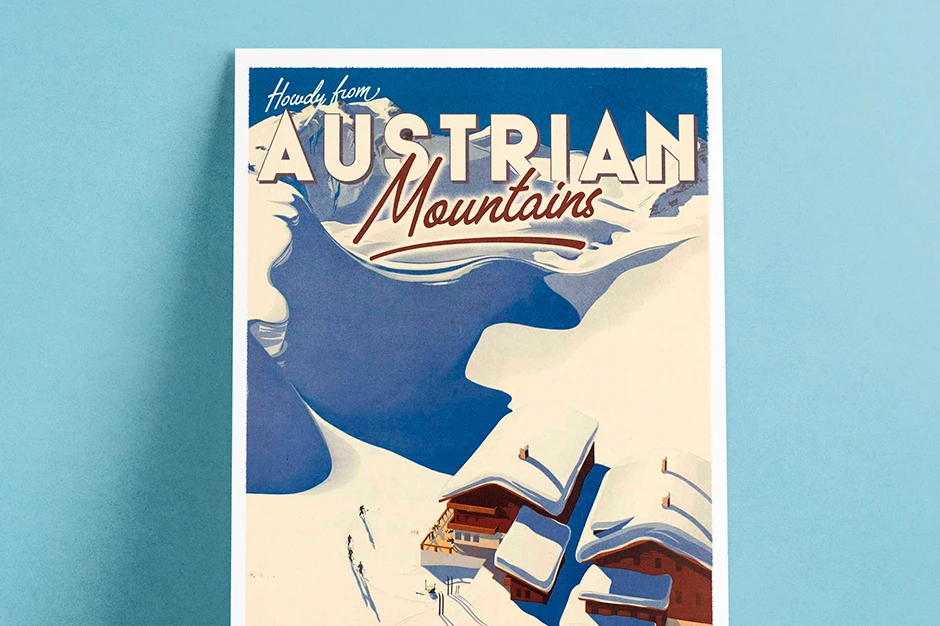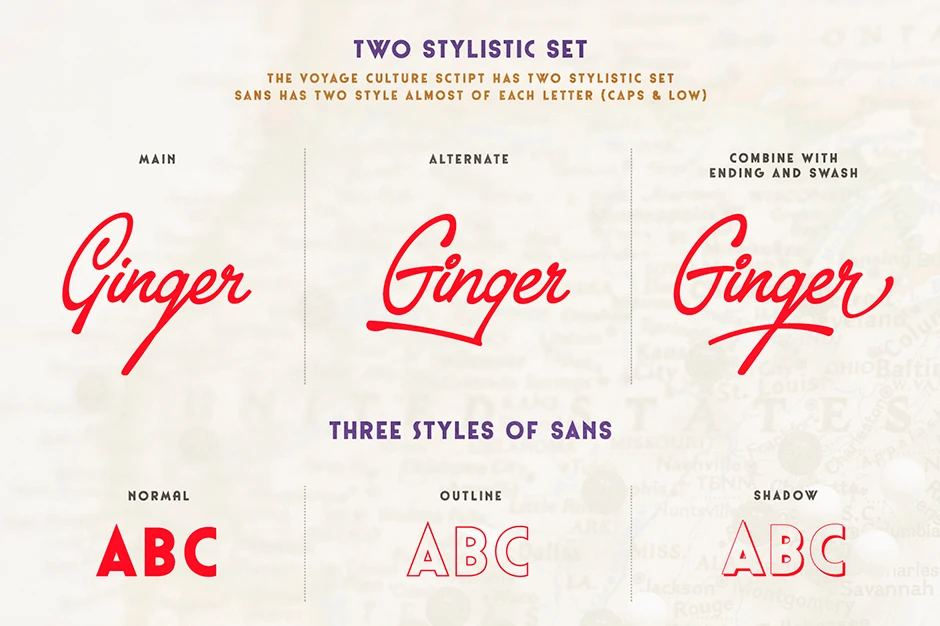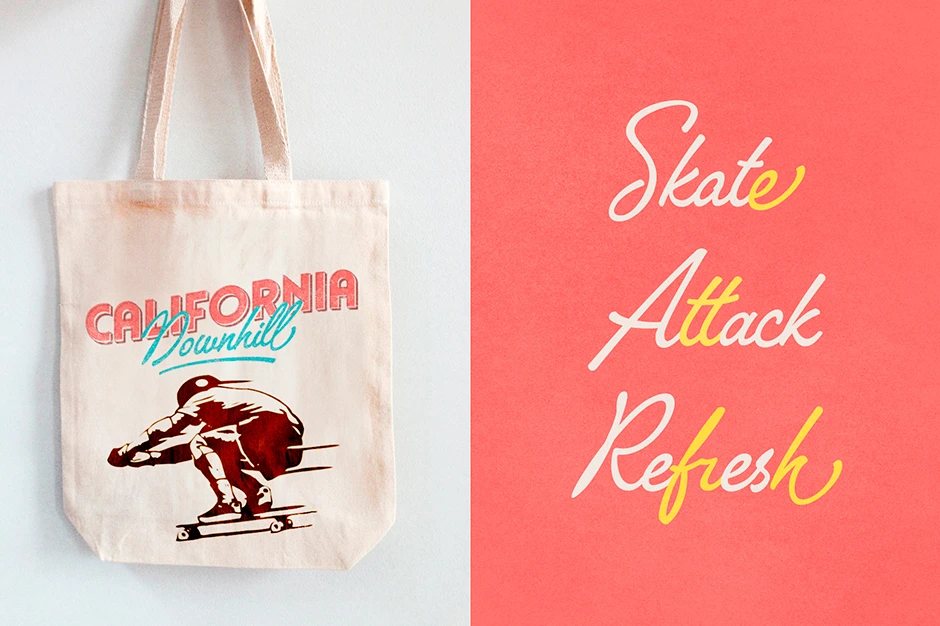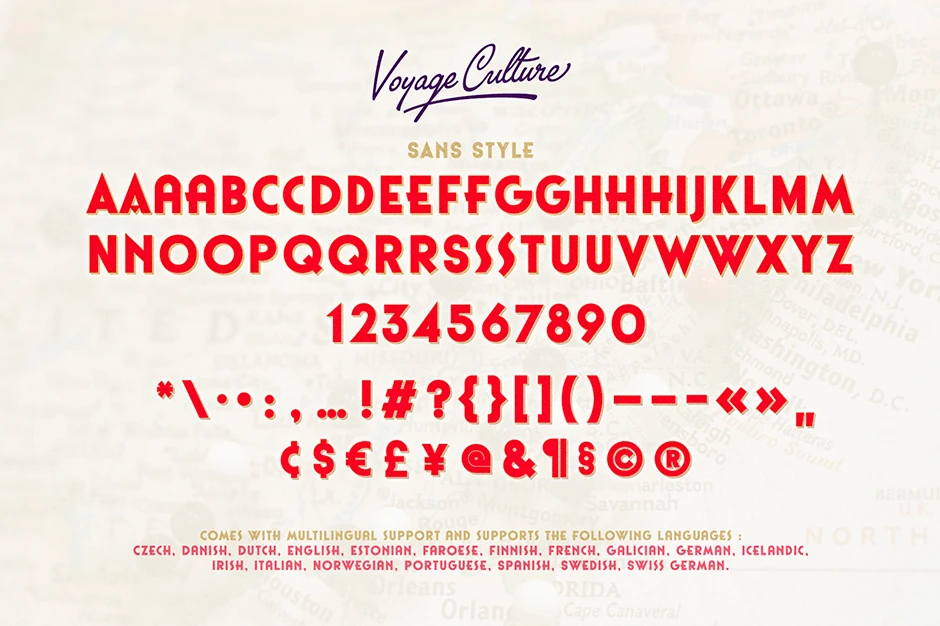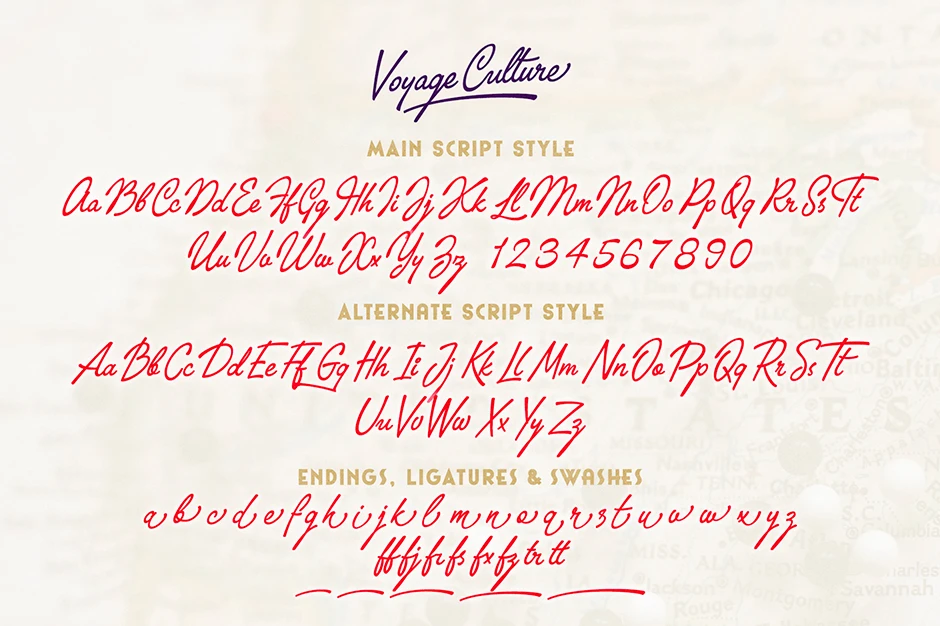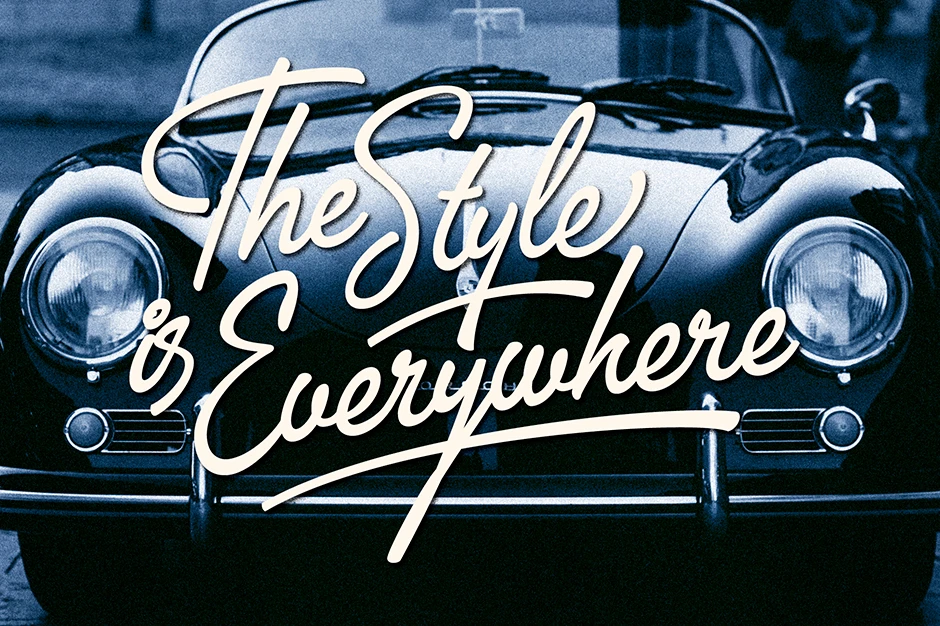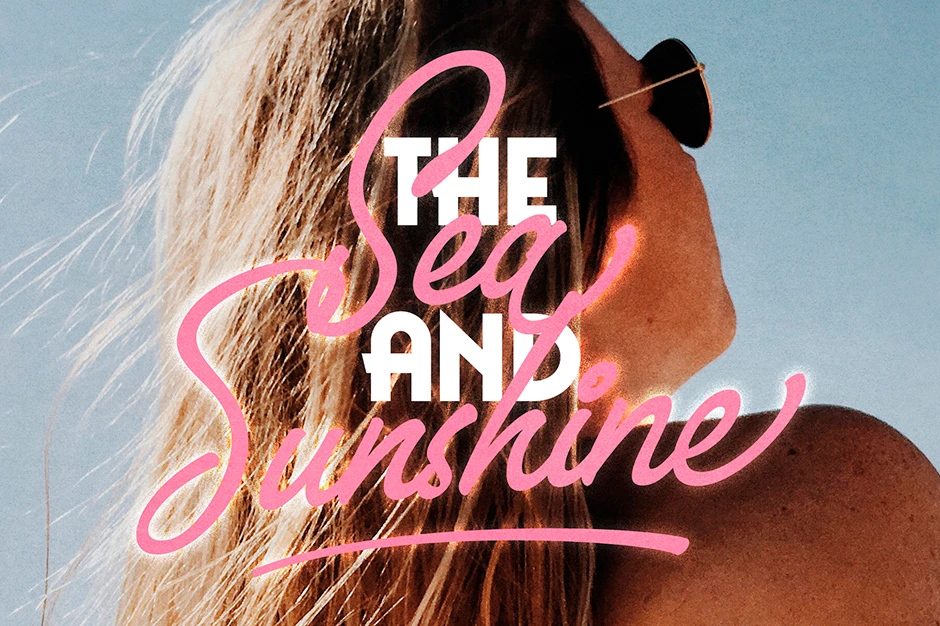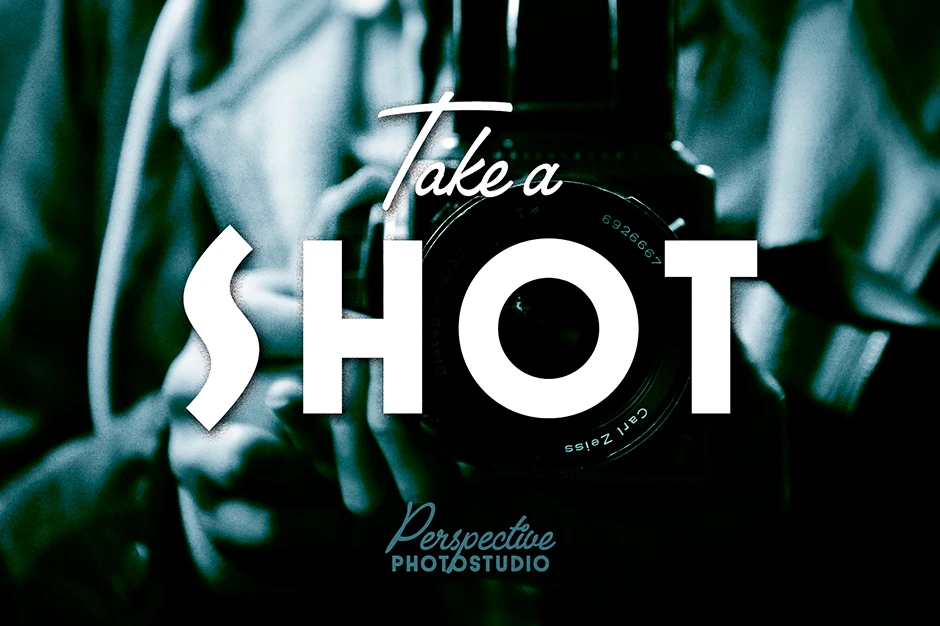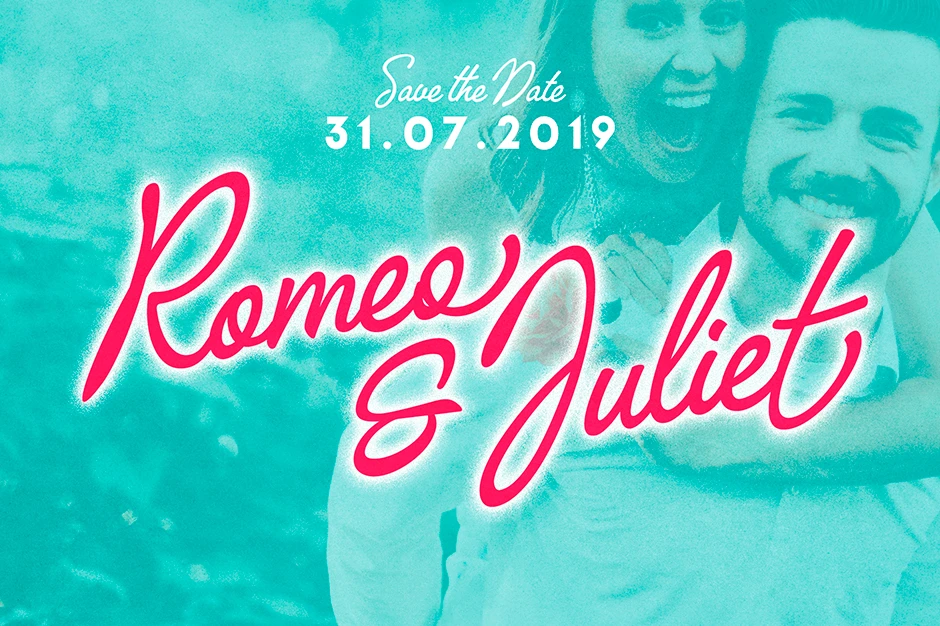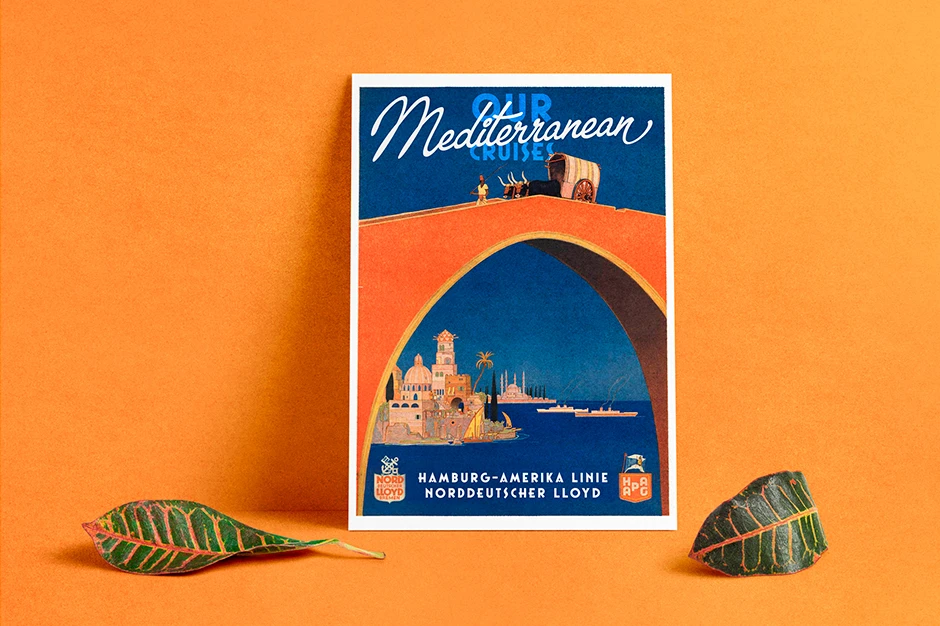
Voyage Culture Font Family
Voyage Culture is a vintage-inspired font pair designed for flexible, stylish typography. It combines a bold, art-deco influenced sans-serif with a playful retro brush script. Inspired by early 20th-century travel posters, this duo brings a nostalgic yet energetic feel to any design.
Perfect for t-shirts, café logos, music posters, candy packaging, and more, the fonts work beautifully together to create standout visuals. With distinctive characters in the sans and the expressive brush of the script, Voyage Culture adds charm and character to both modern and vintage-themed projects.
• Common Ligatures
• Stylistic Alternates
• Stylistic Sets